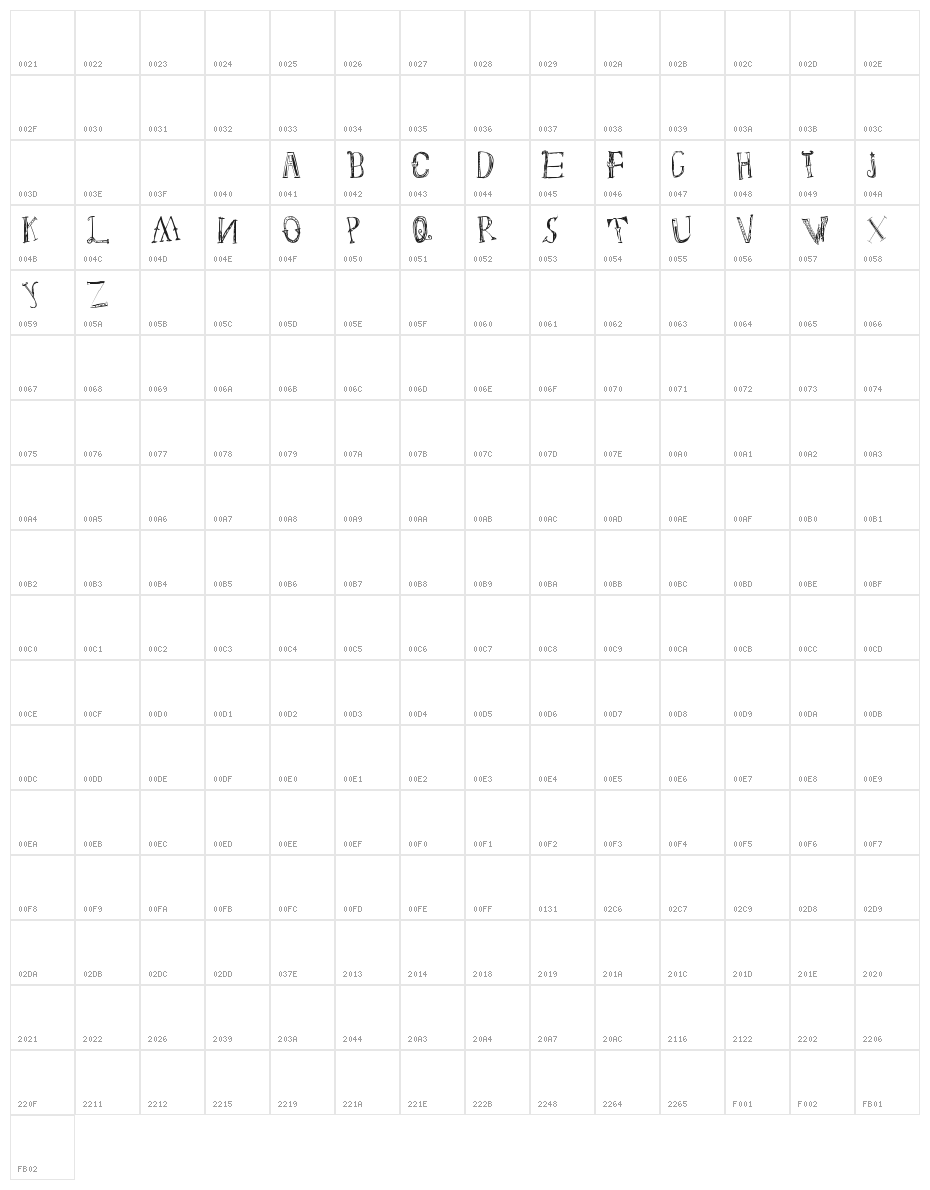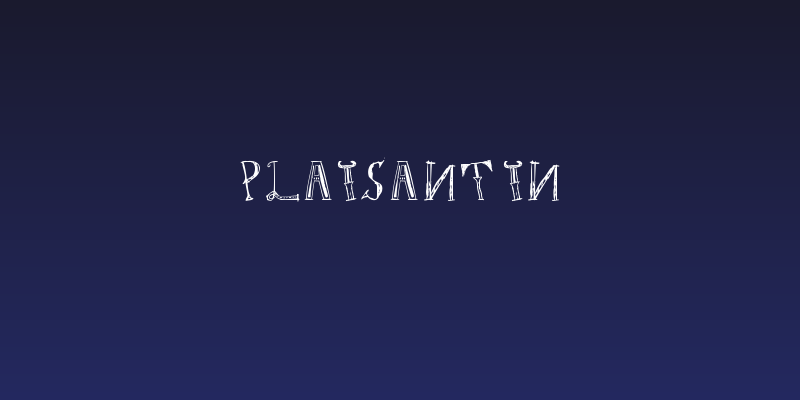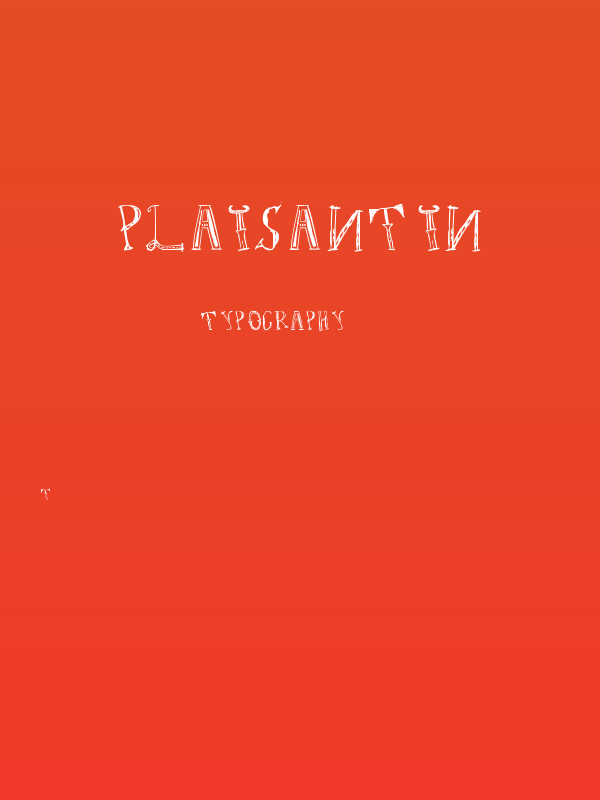
plaisantin Font
plaisantin Description
This font is a playful and whimsical display typeface characterized by its eclectic and varied letterforms. Each character is uniquely designed with intricate details, giving it a hand-drawn and artistic feel. The letters feature a mix of bold strokes, decorative elements, and varying line weights, creating a dynamic and lively appearance. The font's irregular and quirky style makes it stand out, perfect for projects that require a touch of creativity and fun.